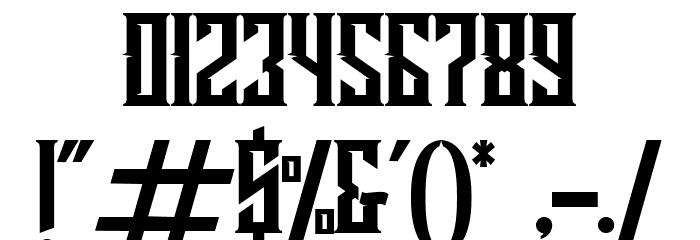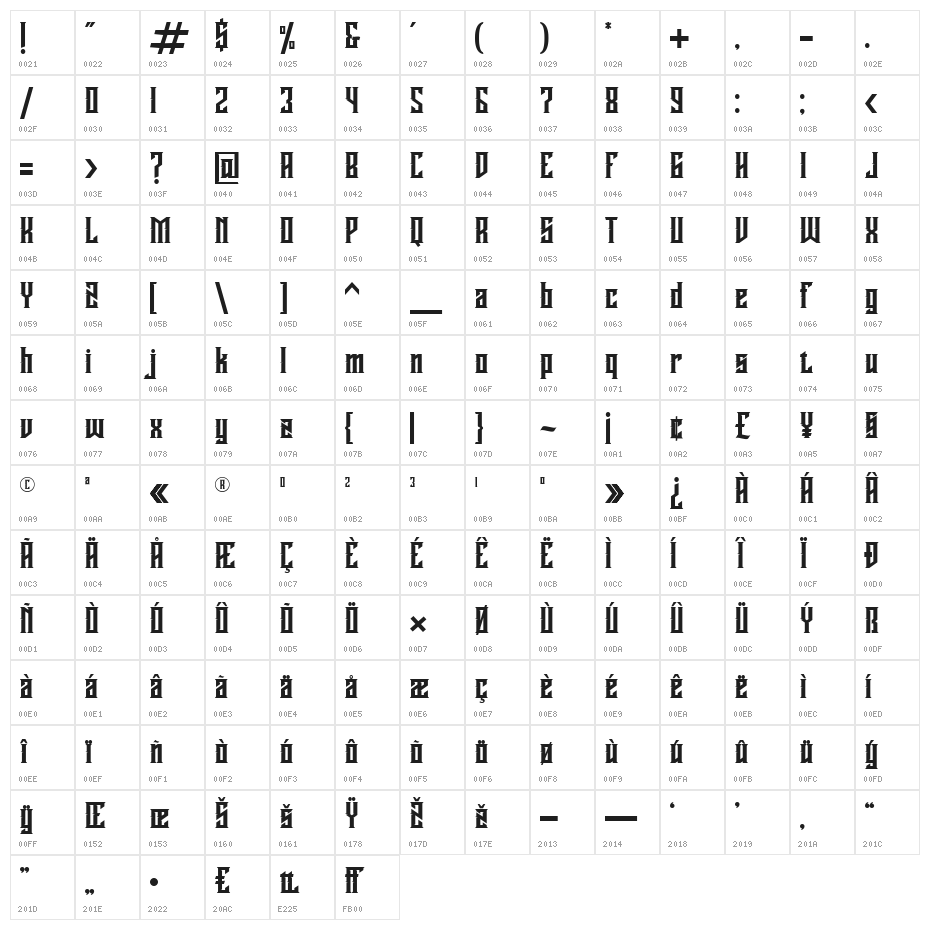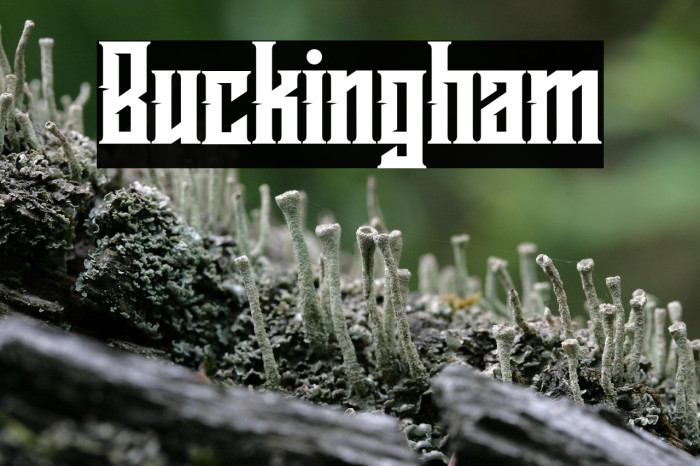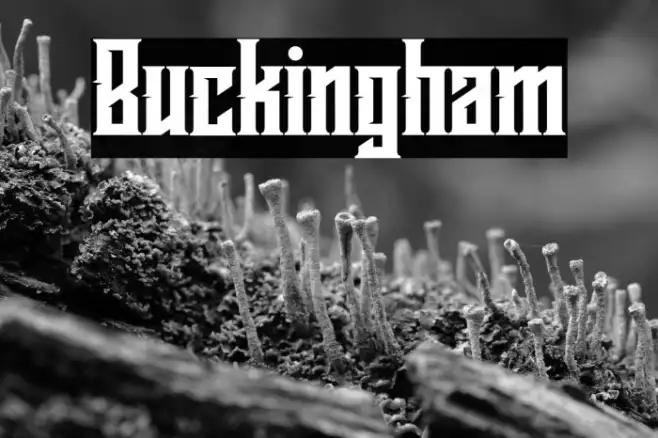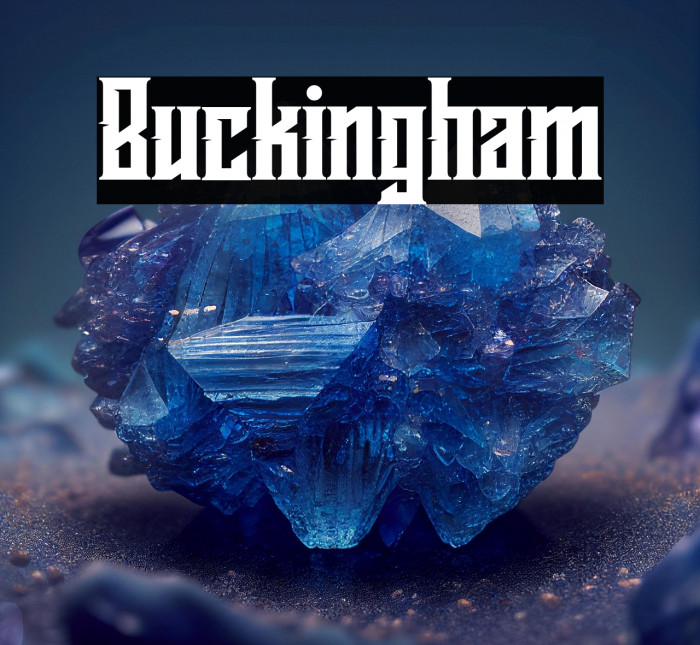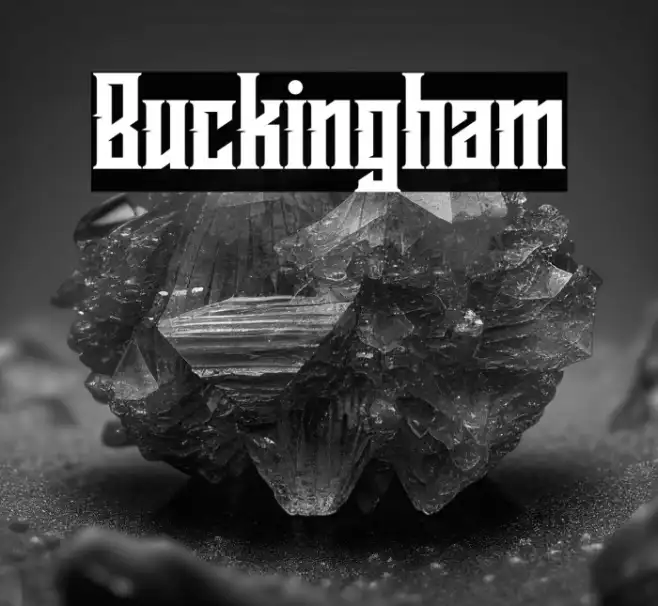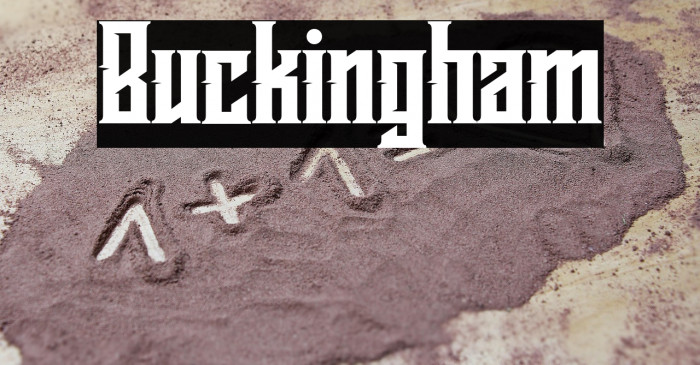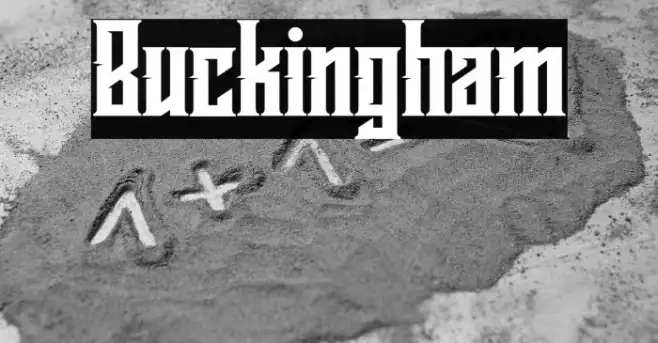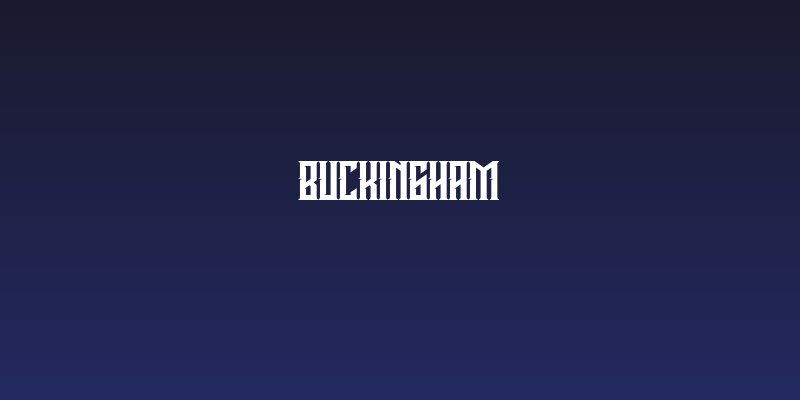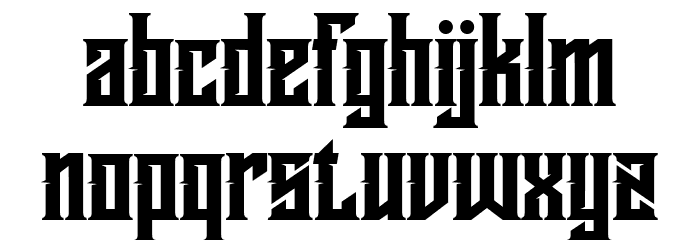
Buckingham Font
Buckingham Description
This font features a bold and striking design with a gothic influence, characterized by sharp, angular lines and a strong presence. The uppercase letters are tall and imposing, while the lowercase letters maintain a consistent style with slightly reduced height. The numerals and special characters follow the same bold and angular aesthetic, making them stand out prominently. The overall appearance is reminiscent of medieval or blackletter styles, with a modern twist that adds a unique flair. This font is ideal for projects that require a dramatic and eye-catching typeface.
| Overall Style | Modern Gothic |
| Proposed Projects | Ideal for branding, posters, album covers, and any project requiring a dramatic and eye-catching typeface. |